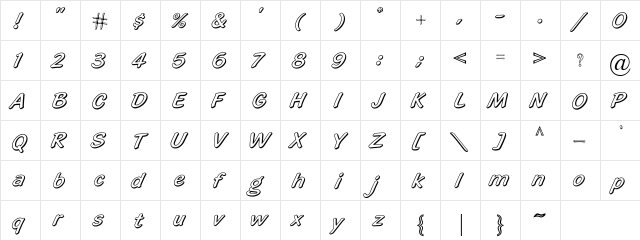
Mangrio-Aziz-Outline-PJG Regular
| Designer | Abdul Aziz Mangrio Pir Jo Goth & Deedar Ali Dharejo Piryaloi |
Design Context for Mangrio-Aziz-Outline-PJG Typeface
Mangrio-Aziz-Outline-PJG brings ornamental detail and strong personality to headlines and identities, where visual impact matters more than quiet functionality.
Font Pairing: Pair with a clean neutral sans-serif for body copy to let Mangrio-Aziz-Outline-PJG's character lead without overwhelming the composition.
Pro Tip: Use Mangrio-Aziz-Outline-PJG exclusively at display sizes — it was designed to be seen, not read at length. Let a neutral companion handle body copy.